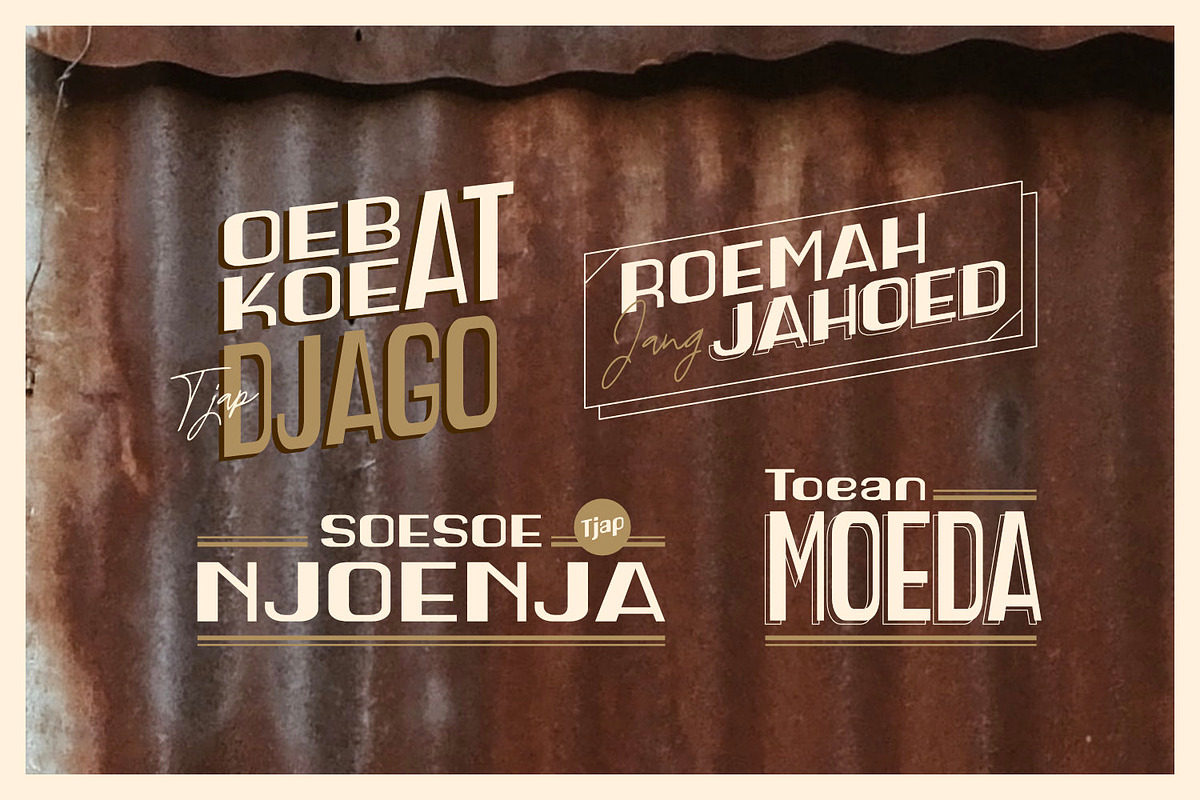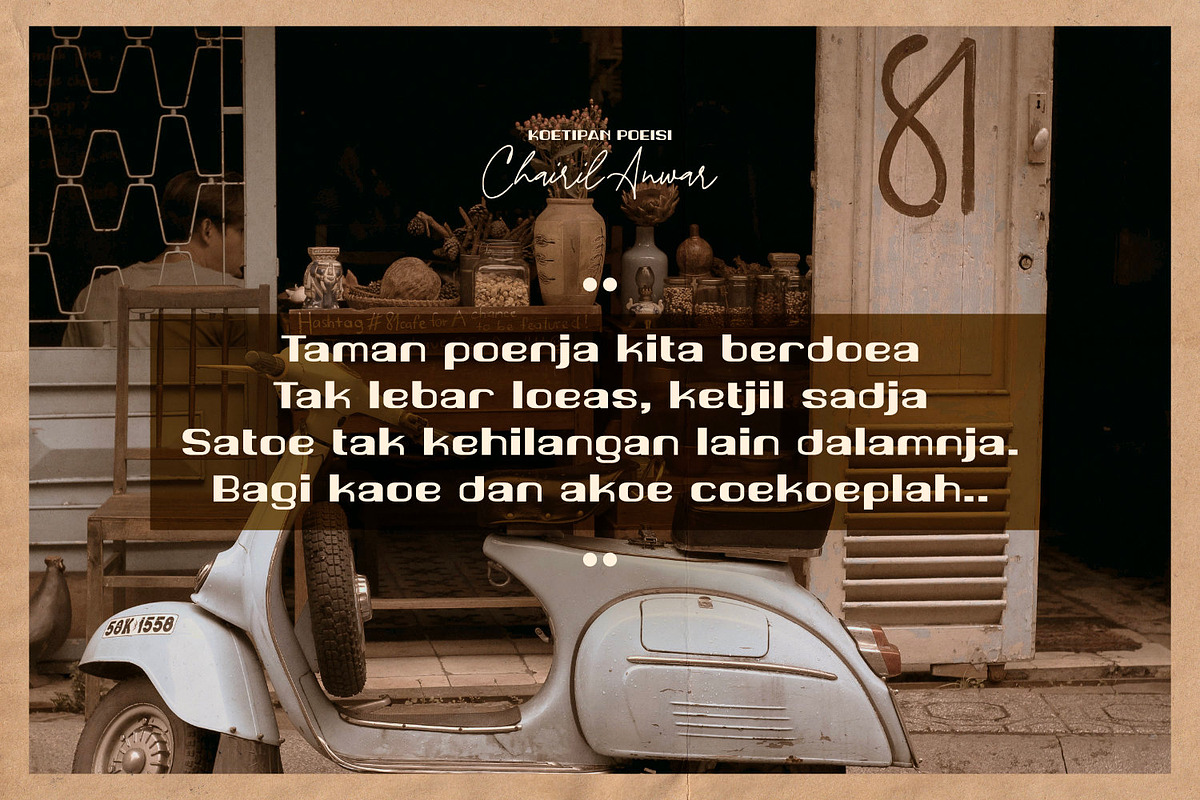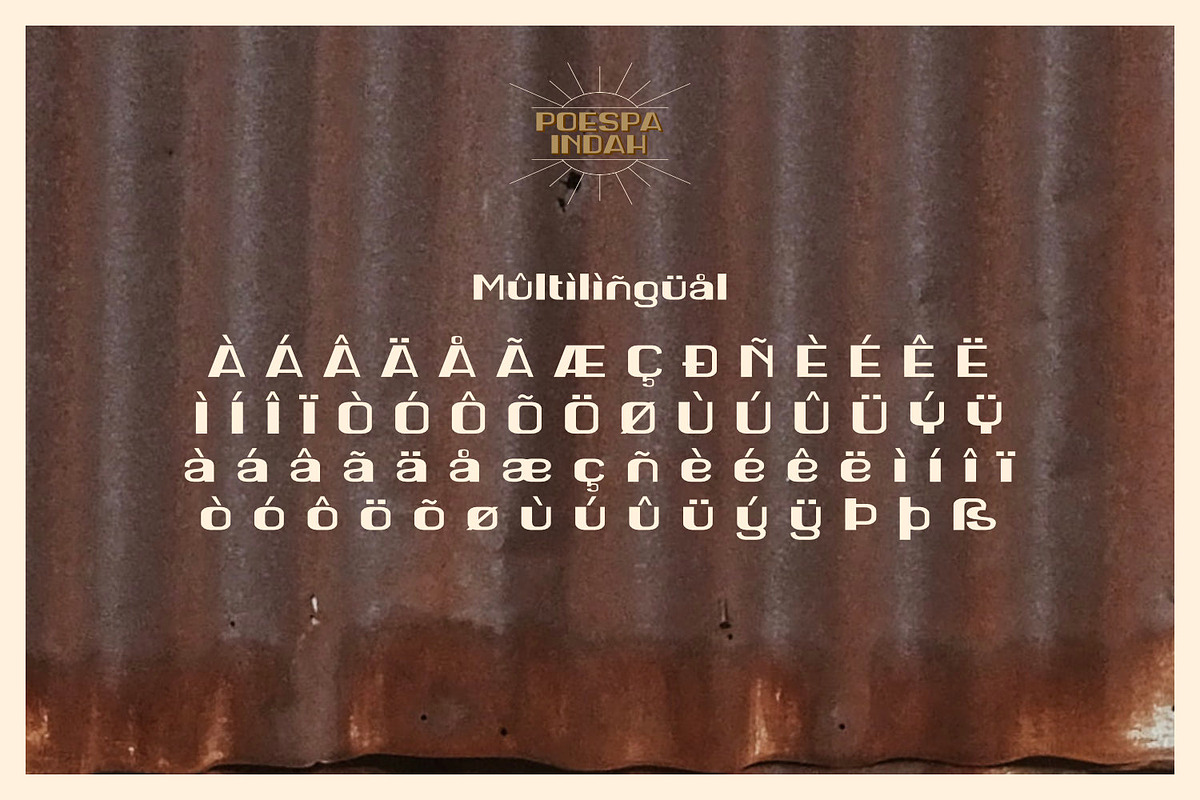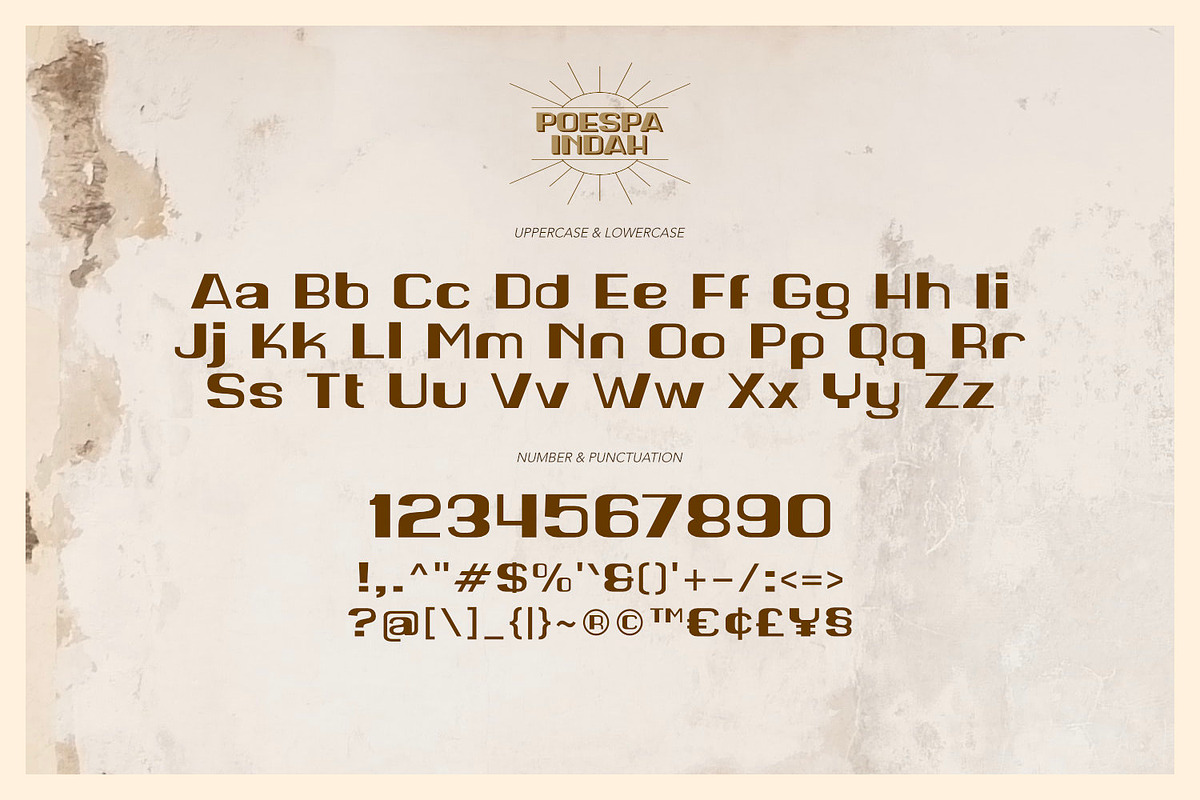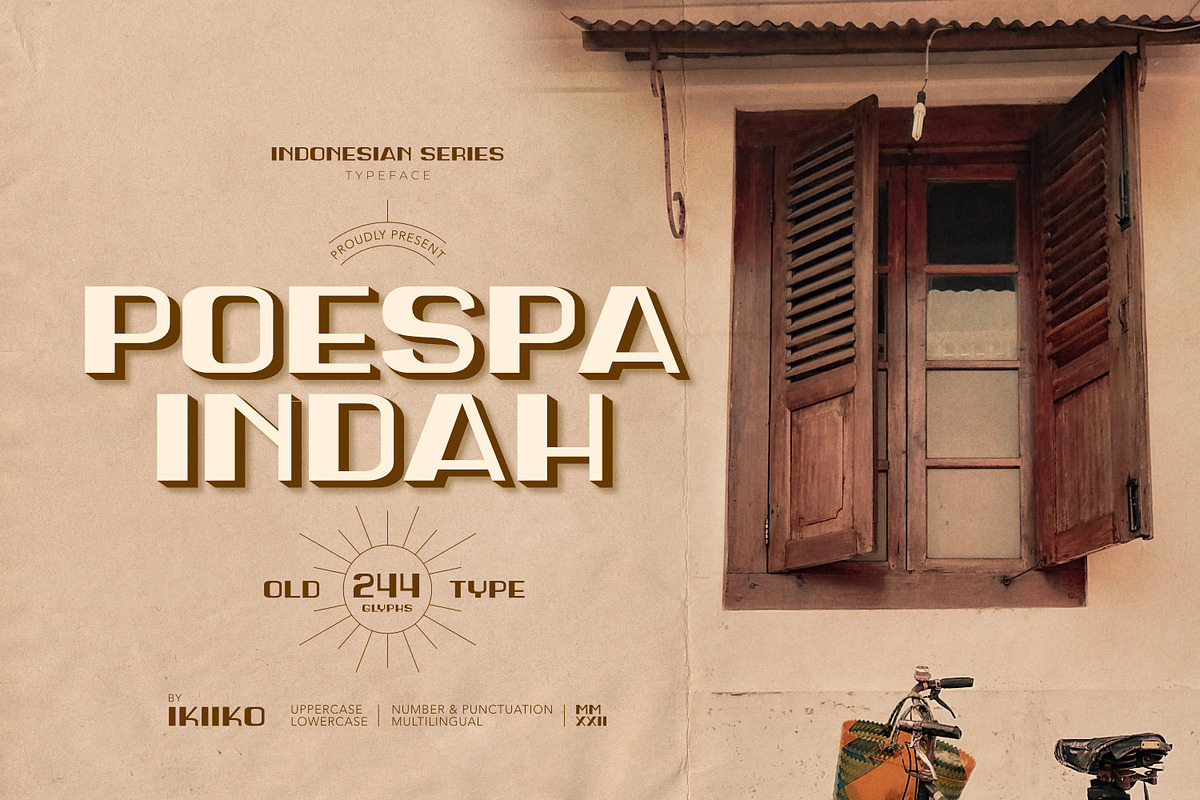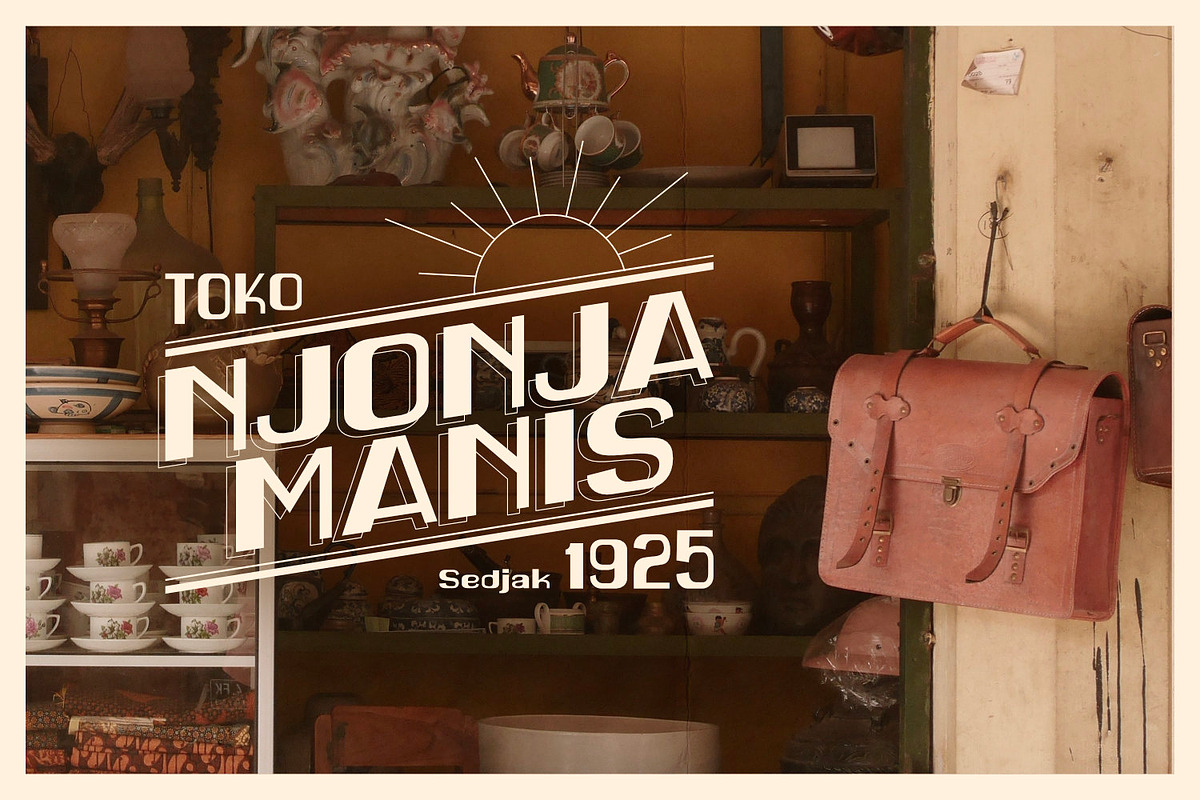
Poespa Indah - Old Type
Introducing Poespa Indah - Old Type, created by ikiiko.
Poespa Indah was inspired by vintage store signs in the classic era of indonesia around the 60s. In particular, this typeface is designed to give a formal yet old style look. Poespa Indah has a sans serif typeface with bold to light contrast. This typeface is perfect for an formal layout, newspaper, magazine cover, and also good for vintage product, quotes, or simply as a stylish text overlay to any background image.